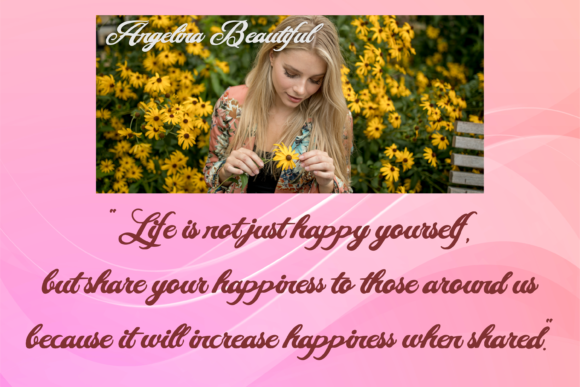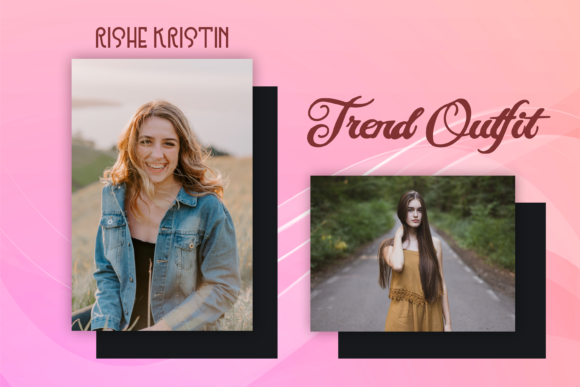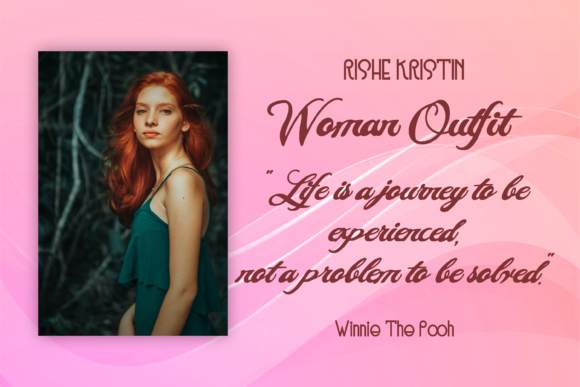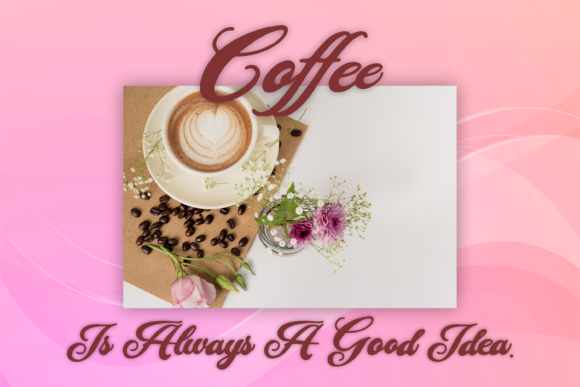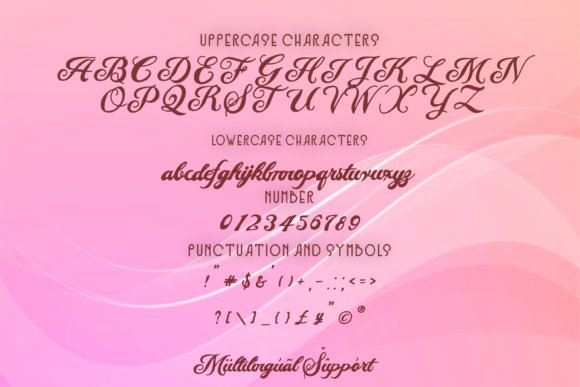
Introducing Angelina Beautiful Font: Elevate Your Creativity with Elegance
Are you a designer, crafter, or DIY enthusiast looking for a font that can add a touch of magic to your creative projects? Look no further than Angelina Beautiful Font, a stunning script font that combines elegance with a whimsical flair. In this article, we’ll dive into the world of Angelina Beautiful, exploring its features, uses, and benefits for creatives.
What is Angelina Beautiful Font?
Angelina Beautiful is a carefully crafted script font, designed to bring a touch of sophistication and charm to any creative project. With its flowing lines, intricate details, and elegant letterforms, this font is perfect for adding a personal touch to your designs. Whether you’re working on a branding project, social media graphics, or DIY crafts, Angelina Beautiful Font is sure to impress.
Key Features of Angelina Beautiful Font
- Magical Script Font: Angelina Beautiful boasts a whimsical, handwritten feel that’s perfect for creating eye-catching designs.
- Elegant Letterforms: Each letter is carefully crafted with intricate details, ensuring a sophisticated and refined look.
- Versatile: Suitable for a wide range of creative projects, from Instagram graphics to calligraphy scripts, and more.
Uses for Angelina Beautiful Font
Angelina Beautiful Font is an incredibly versatile font that can be used in various creative projects, including:
- Instagram Graphics: Add a touch of elegance to your Instagram posts, stories, and reels with this beautiful script font.
- Calligraphy Scripts: Use Angelina Beautiful Font to create stunning calligraphy scripts for DIY projects, such as wedding invitations, greeting cards, and more.
- Branding and Logo Design: Incorporate this font into your branding and logo design to add a touch of sophistication and whimsy.
- DIY Crafts: Perfect for crafters, Angelina Beautiful Font can be used to create beautiful handmade cards, gift tags, and other paper crafts.
Angelina Beautiful Font offers numerous benefits for designers and crafters, including:
- Time-Saving: With its pre-designed letterforms and script styles, Angelina Beautiful Font saves you time and effort in creating custom fonts from scratch.
- Consistency: Ensure consistency in your designs with a font that offers a cohesive look and feel.
- Inspiration: Use Angelina Beautiful Font as a starting point for your creative projects, and let its elegance and whimsy inspire your designs.
- Professional Results: Achieve professional-looking results with a font that’s designed to impress.
Tips for Using Angelina Beautiful Font
To get the most out of Angelina Beautiful Font, follow these tips:
- Experiment with Colors: Pair Angelina Beautiful Font with a range of colors to create visually striking designs.
- Mix and Match: Combine Angelina Beautiful Font with other fonts and design elements to create unique and interesting designs.
- Pay Attention to Details: Take the time to adjust font sizes, line spacing, and other design elements to ensure a polished look.
Angelina Beautiful Font is a magical script font that offers a world of creative possibilities for designers, crafters, and DIY enthusiasts. With its elegant letterforms, whimsical flair, and versatility, this font is sure to become a staple in your design toolkit. Whether you’re looking to create stunning Instagram graphics, beautiful calligraphy scripts, or professional-looking branding materials, Angelina Beautiful Font is the perfect choice. So why wait? Download Angelina Beautiful Font today and elevate your creativity with elegance!